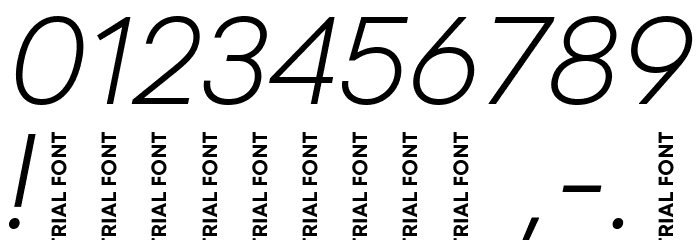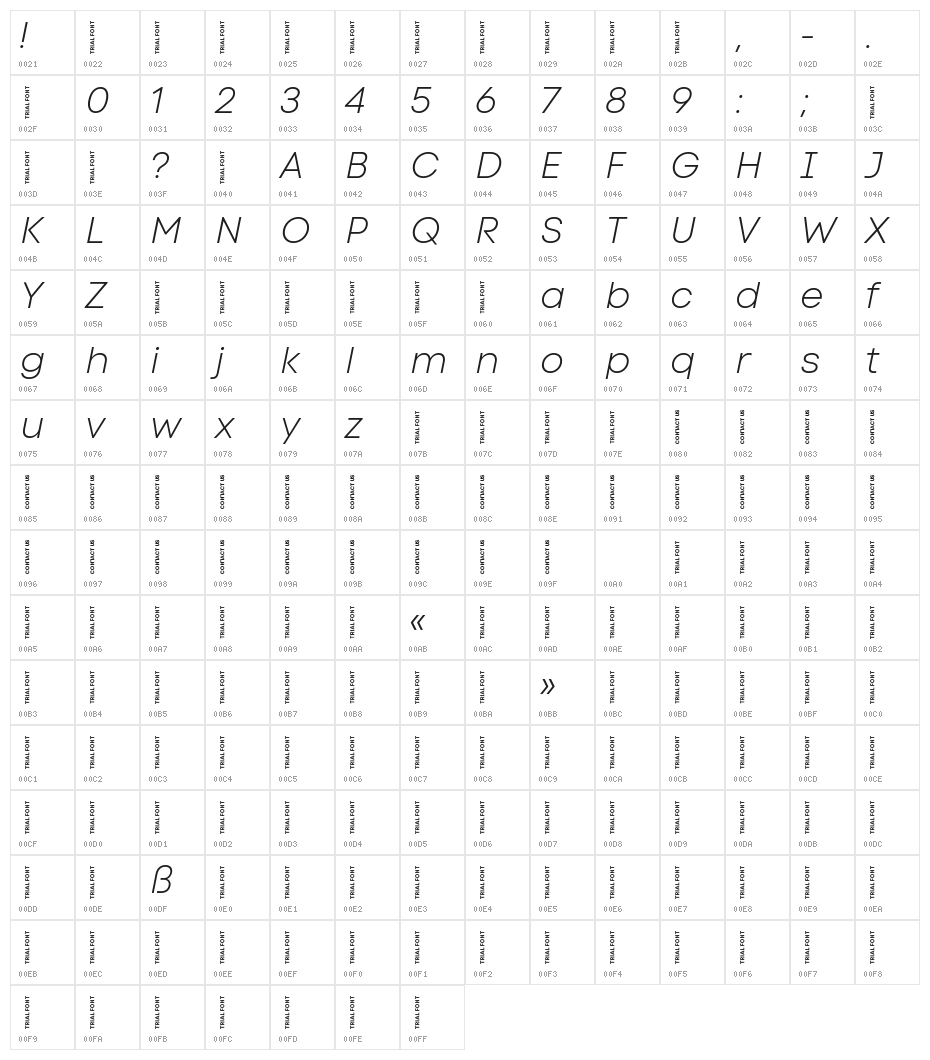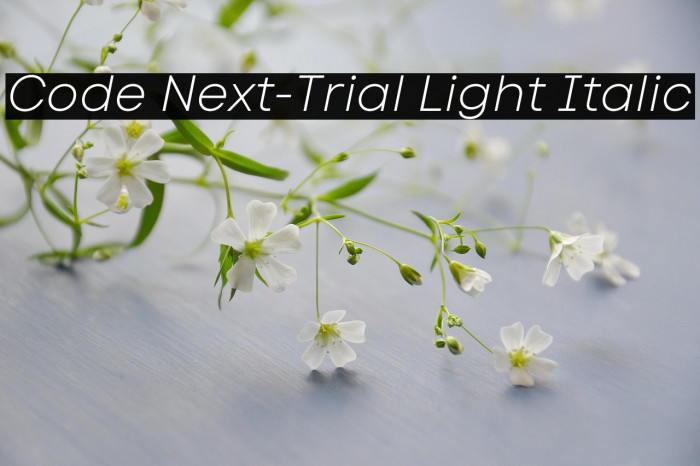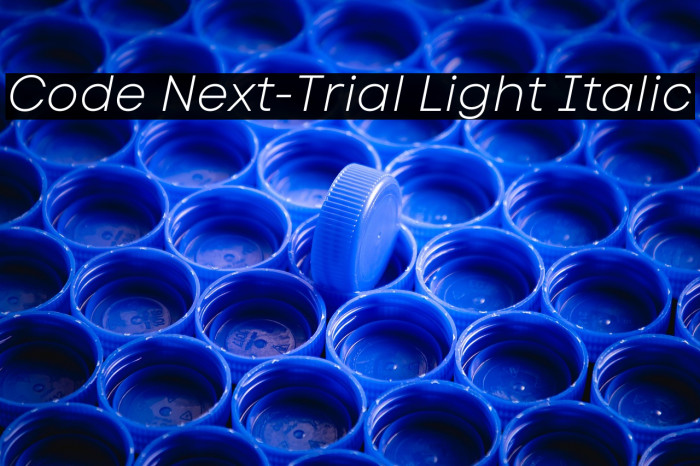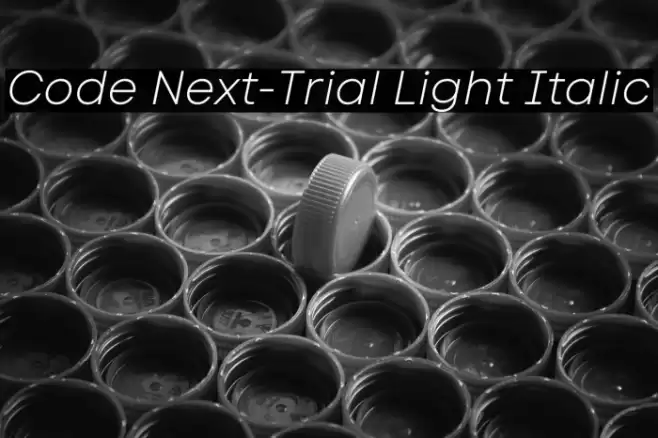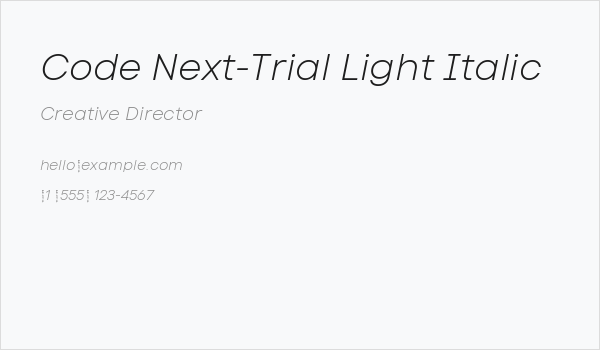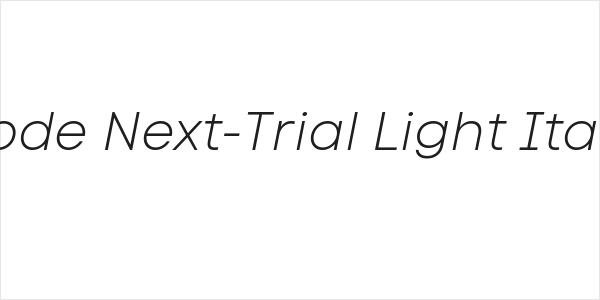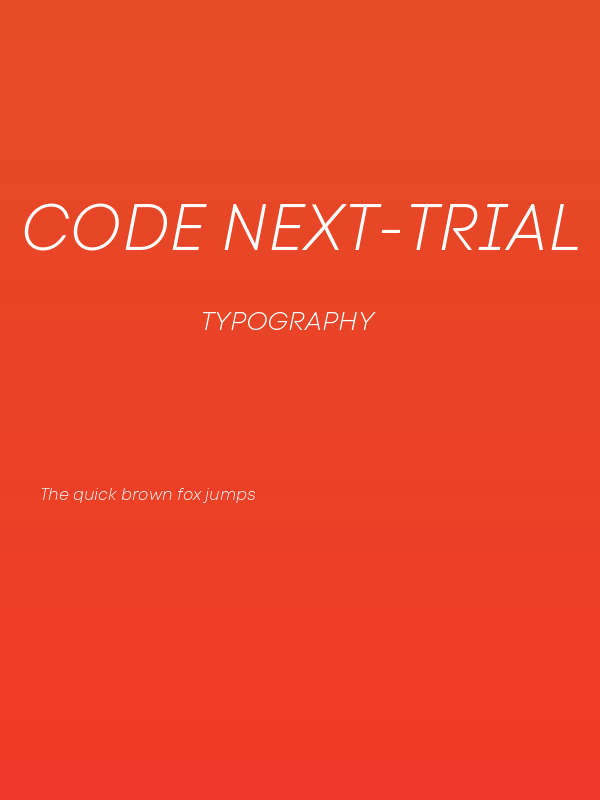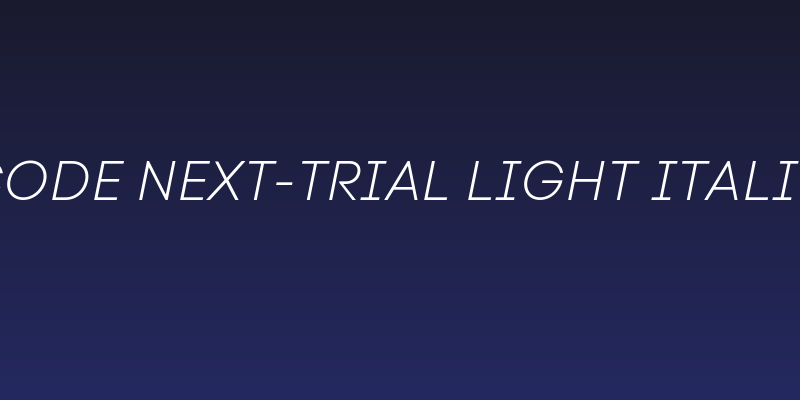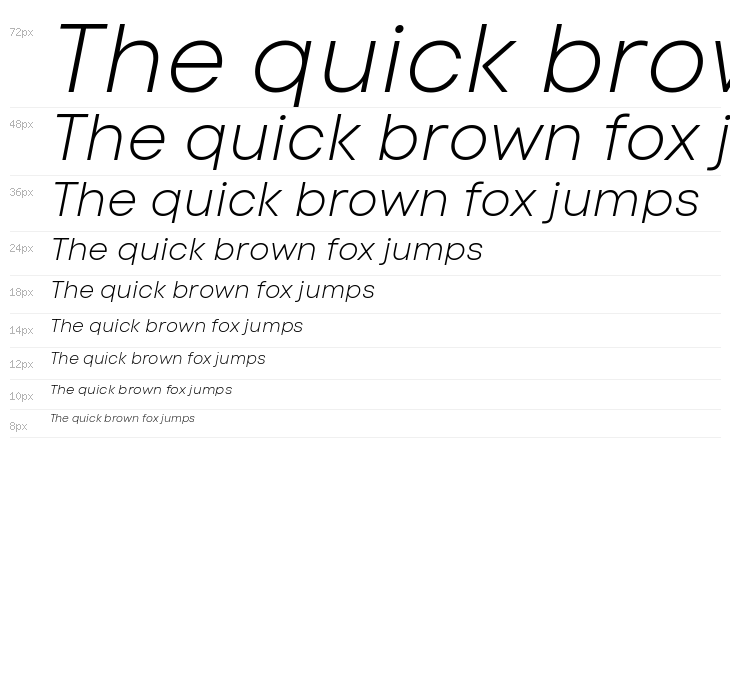
Code Next-Trial Light Italic Font
Code Next-Trial Light Italic Description
This font features a sleek and modern design with a light weight and italic style. The characters are elegantly slanted, giving a sense of motion and fluidity. The sans-serif design ensures a clean and minimalistic appearance, making it versatile for various applications. The characters are evenly spaced, providing a balanced and harmonious look. The numerals and special characters maintain the same aesthetic, ensuring consistency across all elements.